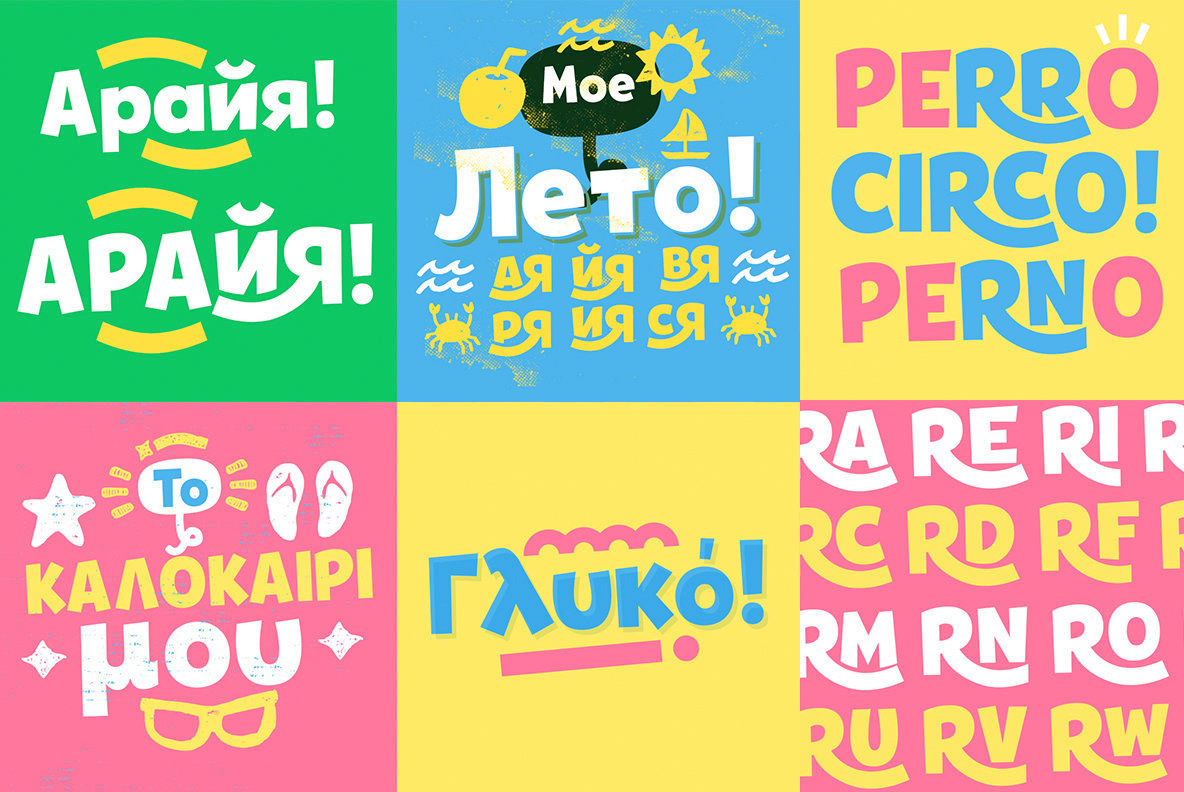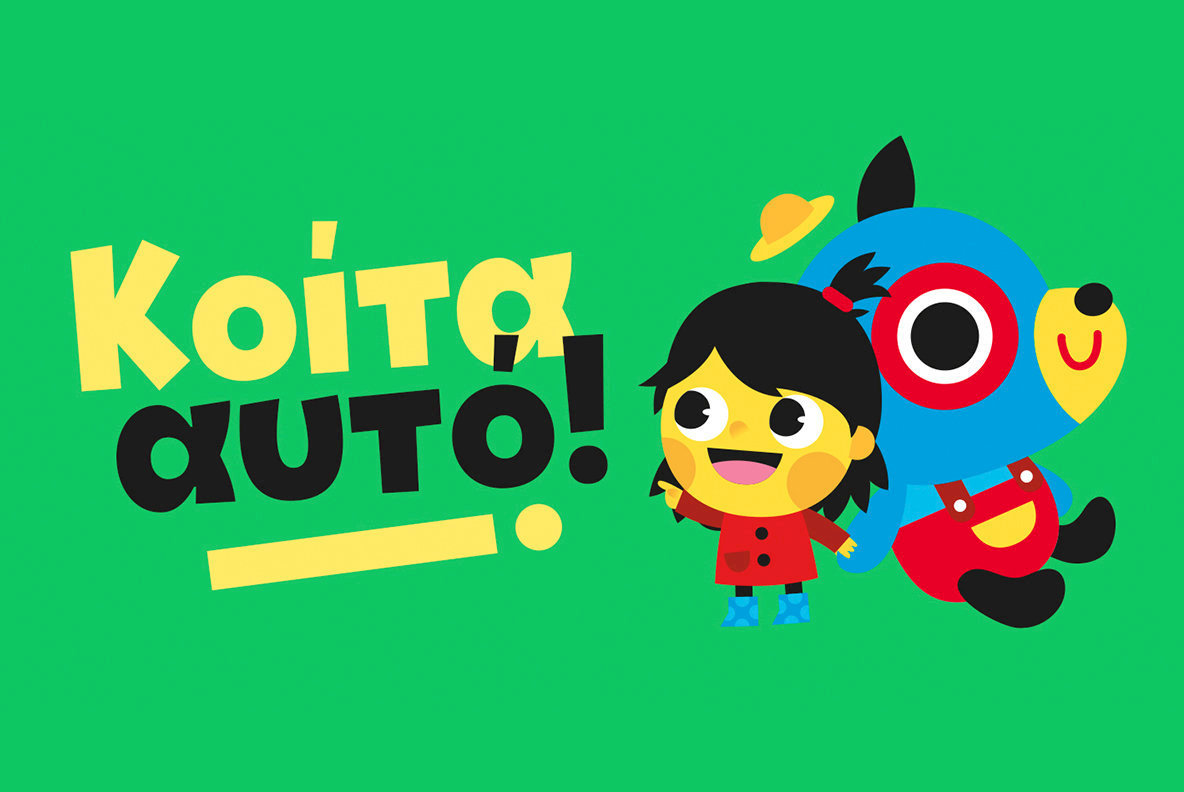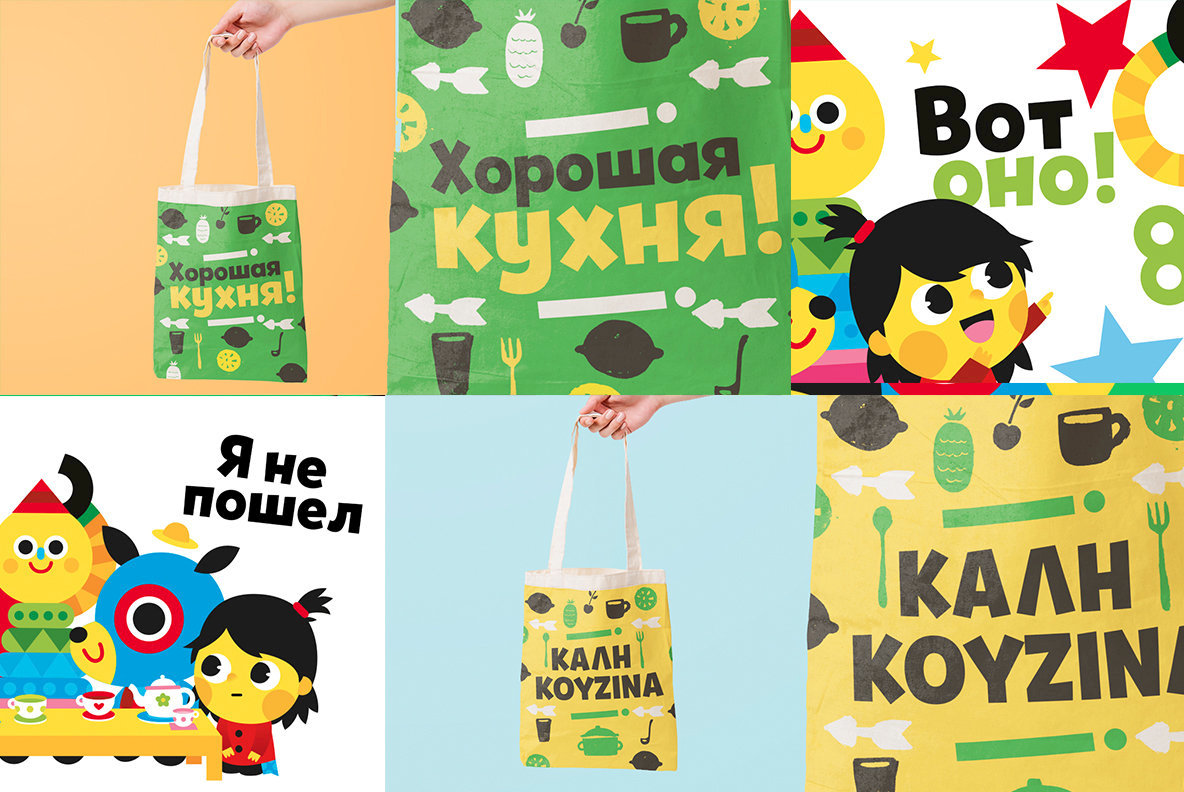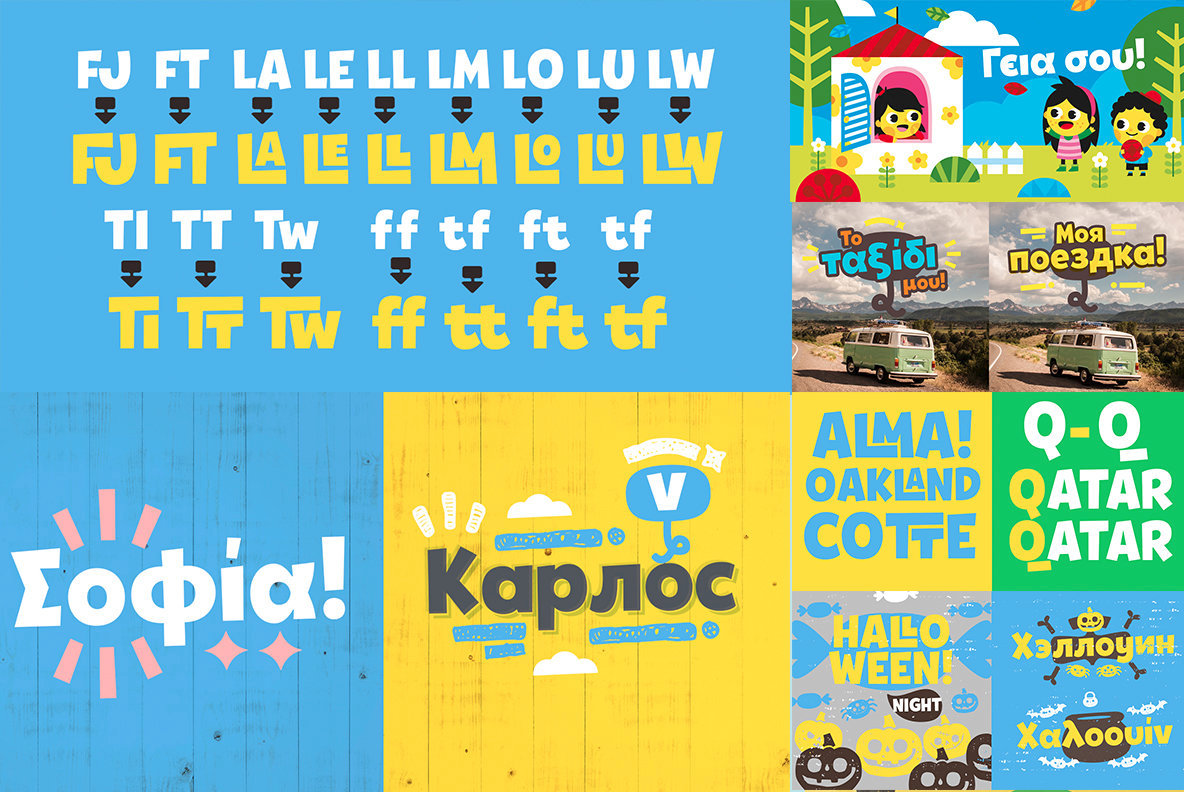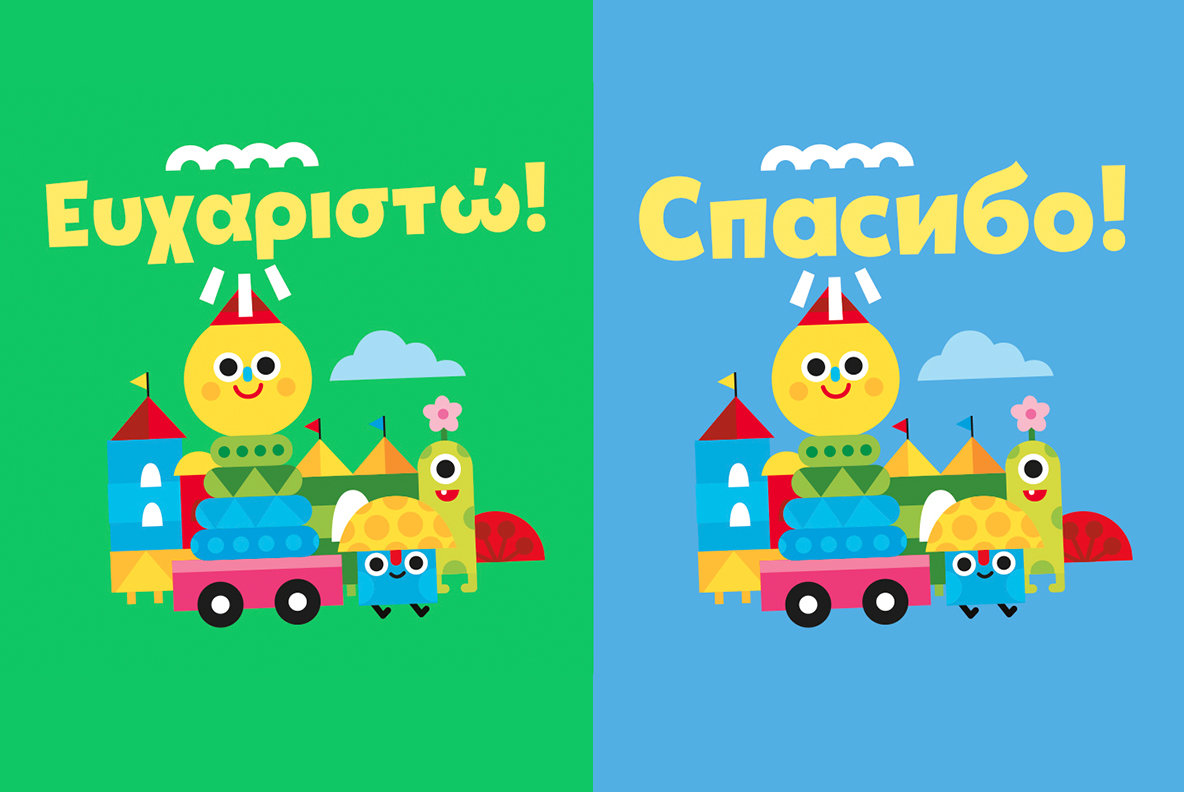
Tobi Greek Cyrillic Font
Tobi Greek Cyrillic is an exuberant typeface that brings life to an array of creative projects. Originally stemming from Tobi (2015), it has been refined to include alternative ligatures and enhanced options. This version features capitalization in Greek and Cyrillic scripts, enriching its versatility. Designed with a youthful spirit, Tobi Greek Cyrillic is ideal for children's titles, playful clothing labels, and comics. Its lively character makes it a compelling choice for designers seeking to inject energy and joy into their work.Tobi Greek Cyrillic: Playful Typography for Vibrant Designs